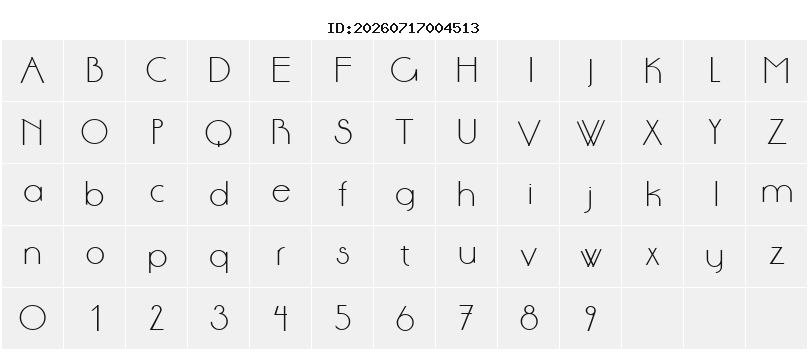
About Aase.ttf
Aase.ttf is a modern, elegant sans-serif font designed for ultimate readability and visual harmony. Perfect for branding, headlines, web design, and print materials.